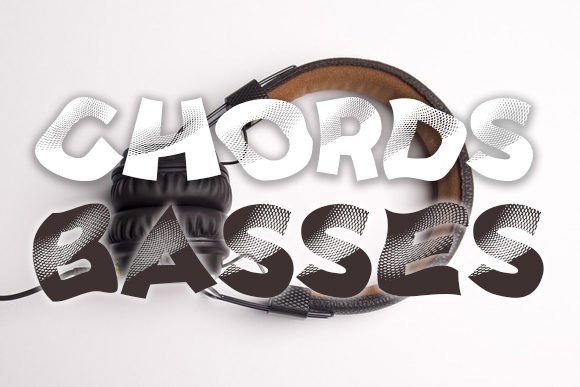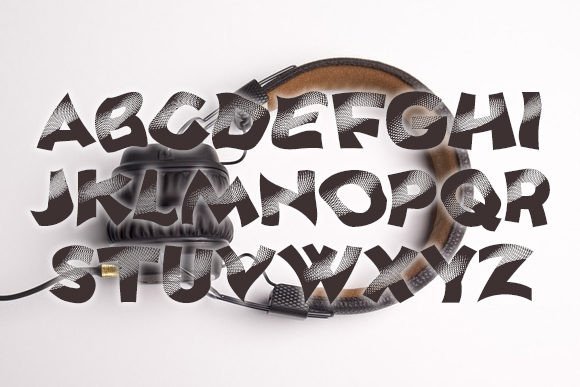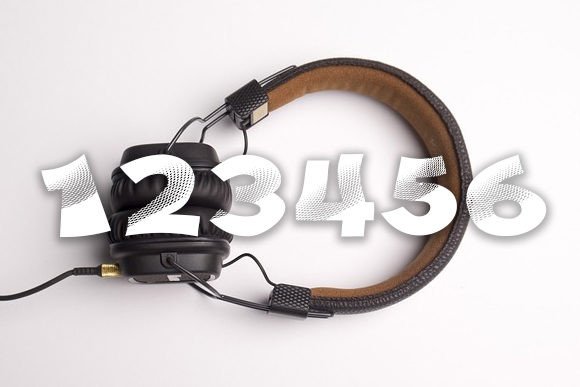
Introduction to Loud Beats Font
Have you ever been working on a creative project and felt like something’s missing? You’ve got the perfect design in your mind, but the right font to bring it all together just isn’t there. That’s where the Loud Beats Font comes in – a fun and engaging display font that’s sure to add some excitement to your next project.
With its wavy and whimsical style, the Loud Beats Font has the potential to elevate a wide range of designs, from eye-catching graphics to high-quality digital art. And the best part? It’s a free download, making it an invaluable resource for designers of all levels. Whether you’re looking for a unique design element or a reliable go-to font, the Loud Beats Font is definitely worth checking out.
One of the things that sets the Loud Beats Font apart is its transparent background, making it perfect for use on top of images or videos. This versatility, combined with its high-quality design, makes it a valuable addition to any designer’s toolkit. So why not give the Loud Beats Font a try and see how it can take your next creative project to the next level?
Key Features of Loud Beats Font
- High-quality, bold, and modern font design perfect for creative projects, music festivals, or electronic dance music (EDM) themes.
- Transparent background, allowing for easy customization and layering in various design applications.
- Large character set, including uppercase and lowercase letters, numbers, and punctuation marks, making it suitable for various text-based applications.
- High-resolution design, suitable for use at large sizes, ensuring crisp and clear display on high-resolution screens.
- Perfect for use in digital art, graphic design, and creative projects, adding a bold and energetic feel to any design.
Honest Review: Loud Beats Font
As a designer, I’m always on the lookout for high-quality design resources to elevate my creative projects. The Loud Beats Font caught my attention with its bold and edgy vibe, perfect for music-related projects or anyone who wants to add a bit of excitement to their design.
What works well with the Loud Beats Font is its versatility. It comes with a transparent background, making it easy to customize and pair with different colors and designs. The font is also available for free download, which is a huge plus for designers on a budget. I’ve used it for several projects, and it’s always been a hit with my clients.
- ✨ Edgy and bold vibe that’s perfect for music-related projects
- ⚠️ Limited character set, which may not be suitable for long blocks of text
- ⚠️ Not ideal for formal or professional projects due to its edgy vibe
Overall, I’m impressed with the Loud Beats Font. It’s a great addition to any designer’s toolkit, and its free download makes it a must-have for anyone looking to spice up their creative projects.
To get the most out of the Loud Beats Font, experiment with different font sizes, colors, and styles. You can also combine it with other design elements to create a unique visual identity for your project.
The Loud Beats Font is perfect for music-related projects, event invitations, and social media graphics. Its high-quality design and transparent background make it a versatile design resource for any creative project.
What is the recommended usage for Loud Beats Font?
Loud Beats Font is designed to be a high-quality font for digital and print projects. It’s ideal for use in logos, branding, and other creative projects where a bold and eye-catching font is required. However, please use your discretion when using the font in large blocks of text, as it’s designed for emphasis and visual impact.